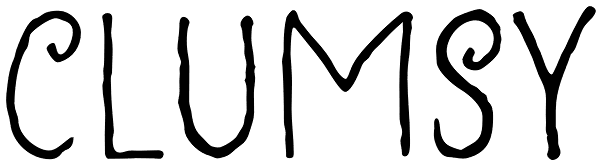
Clumsy
Clumsy is a two weight all caps handcrafted awkward font with alternates for all characters and digits. The font was inspired by a few lines of text from an old soviet book about vine. Clumsy is a good choice for small amounts of text. When Clumsy...
Clumsy
Clumsy Bold